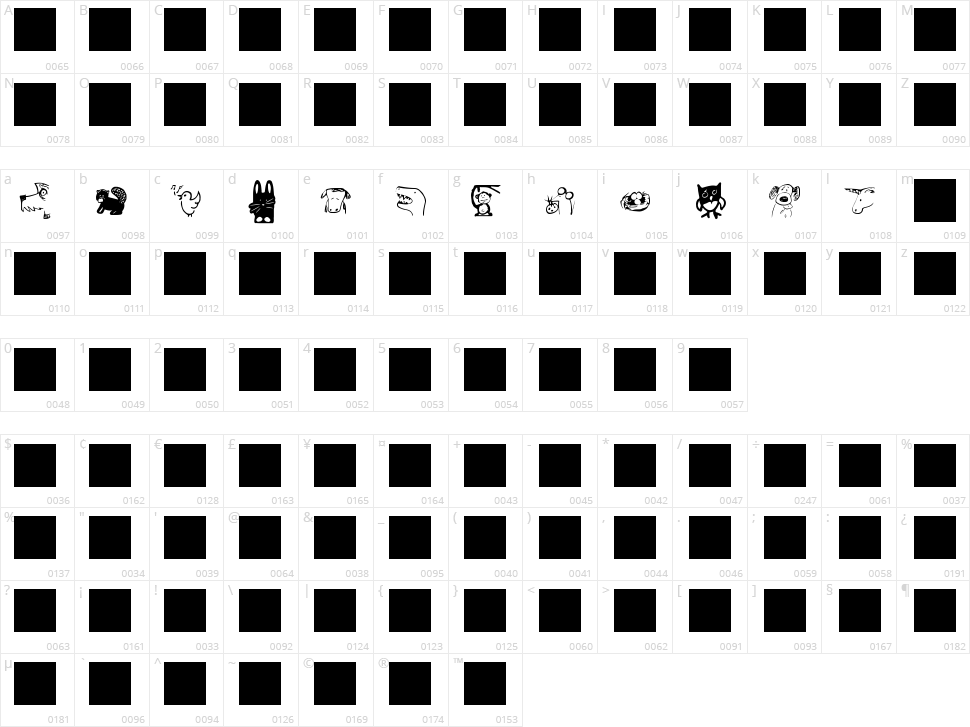
GM Doodles Animals
Note: This font is best done in one color as the lines are continuous and the images open.
You can, however, close the open ends and, in a painting program, fill in the centers with color.
GMDoodles_Animals dingbat font
Doodles by GM(dingbat font made by g)
This was a family project...hand drawn doodles by my daughter,
and font assembled by me, with full rights and permission from the artist.
Lowercase letters only a-l = 12images.